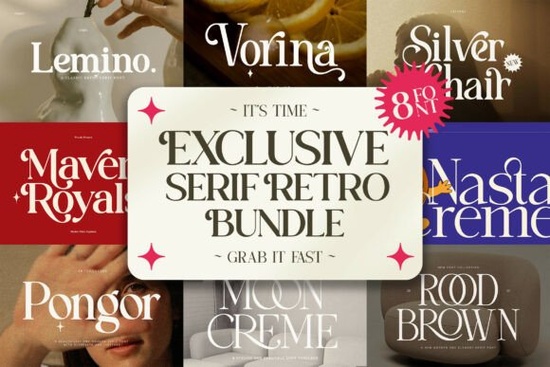
If you've been searching for a font collection that captures the warmth and character of mid-century design, the Exclusive Serif Retro Bundle Font is worth a close look. Packed with 8 distinct typefaces, this bundle brings together high-contrast serifs, groovy display faces, and elegant ligatures all inspired by the visual language of the 1960s and 70s. Whether you design packaging, create social media content, or sell print-on-demand products, having a solid set of retro serif fonts on hand can save you time and keep your work visually consistent.
What's Actually Included in This Font Bundle?
This isn't a random collection of fonts thrown together. Each typeface in the Exclusive Serif Retro Bundle serves a different purpose, which makes it practical for a range of projects. Here's a quick look at what you get:
- Lemino A refined serif with classic proportions, great for editorial layouts and branding
- Vorina A stylish typeface with a vintage personality, well-suited for headlines and logos
- Silver Chair A bold, retro display font with a groovy edge, perfect for posters and signage
Alongside these, you'll find additional serif typefaces that round out the collection with varying weights, styles, and decorative touches. All fonts come with PUA encoding, so every special character and stylistic alternate is accessible directly from your keyboard or character map no extra software needed.
Who Is This Retro Font Bundle For?
This bundle works well for a surprisingly wide range of creators. If you fall into any of these categories, it's likely a good fit:
- Print-on-demand sellers who need vintage-style typography for t-shirts, mugs, and tote bags
- Small business owners building a brand identity with a classic, premium feel
- Social media managers creating nostalgic or fashion-forward content
- Graphic designers working on magazine layouts, packaging, or emblems
- Crafters and hobbyists making invitations, posters, or wall art
The versatility here is the main selling point. You can go from a clean, sophisticated editorial look to a colorful, psychedelic poster style using fonts from the same bundle. That kind of range is hard to find in a single purchase.
How Does It Compare to Other Serif Font Options?
The Exclusive Serif Retro Bundle sits in its own lane. It's specifically designed for vintage and retro aesthetics, which makes it the best choice when your project calls for 60s or 70s-inspired typography.
What Can You Actually Create With These Fonts?
Here are some practical ways designers and sellers are using retro serif fonts like these:
- Brand logos and emblems The high-contrast serif styles give logos a polished, established look
- Magazine and editorial layouts Clean enough for body text alternatives, stylish enough for headlines
- Packaging design Especially for products targeting a premium or nostalgic market
- Poster prints and wall art Bold display fonts like Silver Chair make a strong visual impact
- Social media graphics Stand out with a distinct retro personality instead of default system fonts
- Wedding invitations and event stationery The elegant ligatures add a touch of classic glamour
- ✅ Pair these retro serifs with simple sans-serif fonts for balanced layouts
- ✅ Use the bolder display styles for headlines and the refined serifs for supporting text
- ✅ Explore the ligatures and alternates they're what make these fonts stand out from generic options